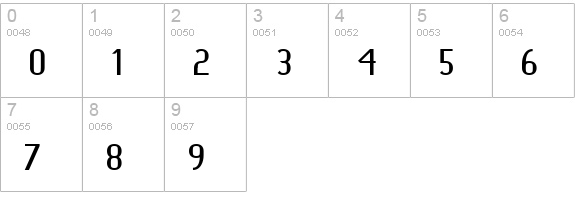
Hunter Font Details
Hunter font is a versatile and modern typeface that is perfect for a wide range of design projects. Its clean lines and distinct style make it a popular choice for both digital and print media. The font features a bold and eye-catching look that is sure to make your designs stand out. Whether you're creating a logo, poster, website, or any other project, Hunter font will add a touch of sophistication and professionalism. The best part is that Hunter font is available for free! You can easily download it at FontsMarket.com and start using it in your projects right away. Don't miss out on this amazing opportunity to enhance your designs with this beautiful and stylish font. Download Hunter font today and take your design to the next level!